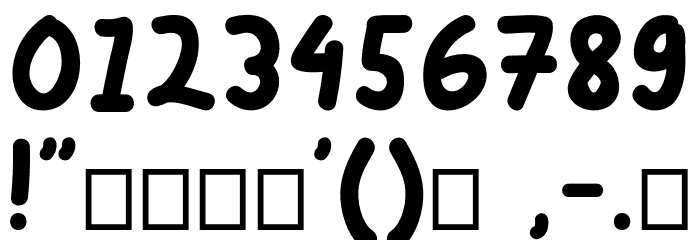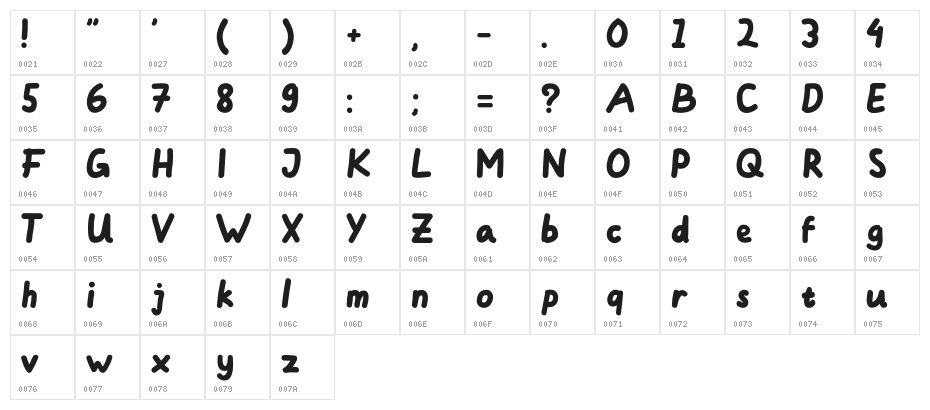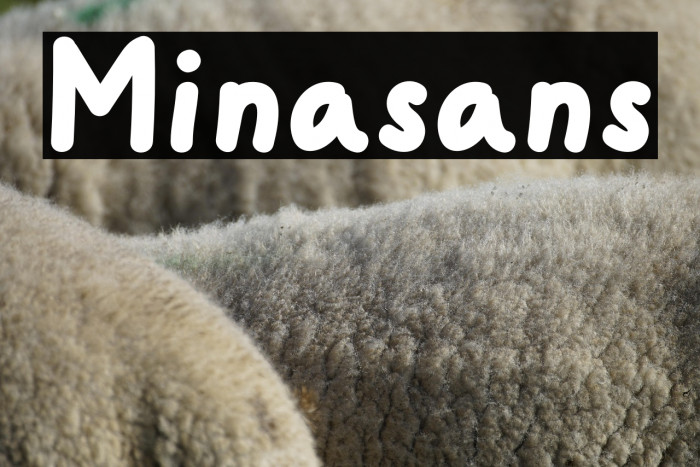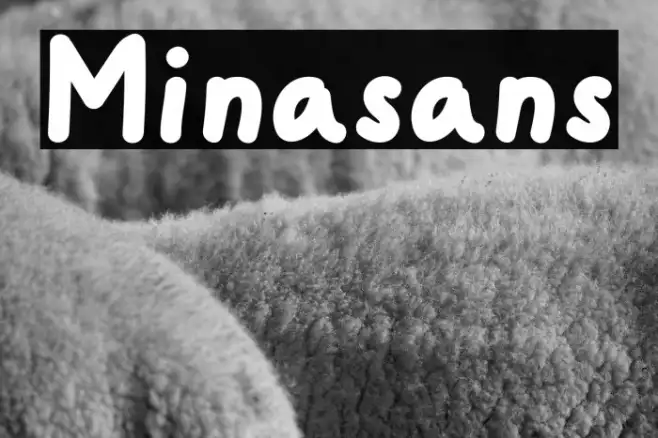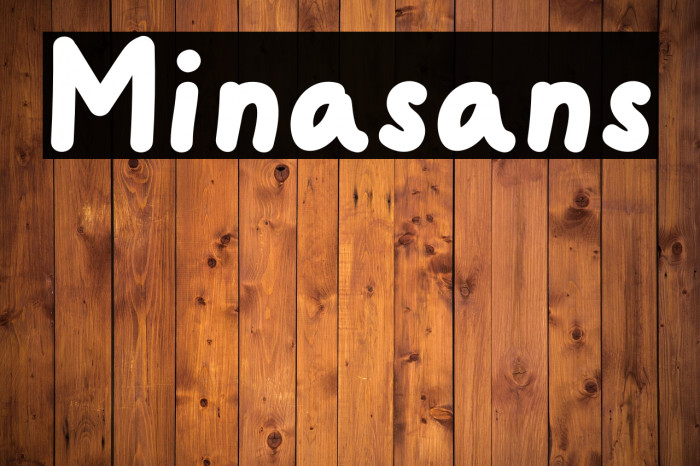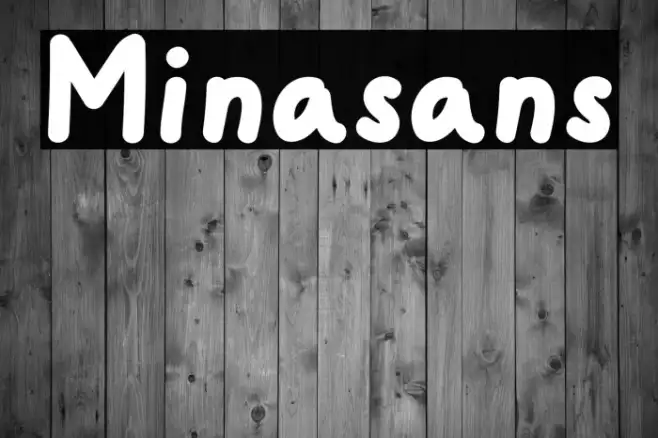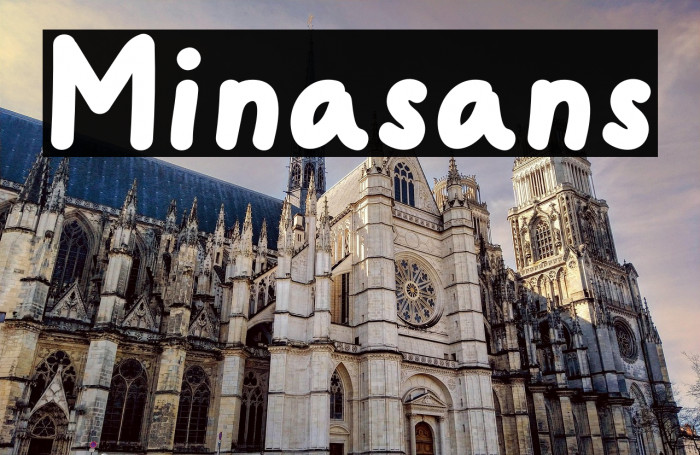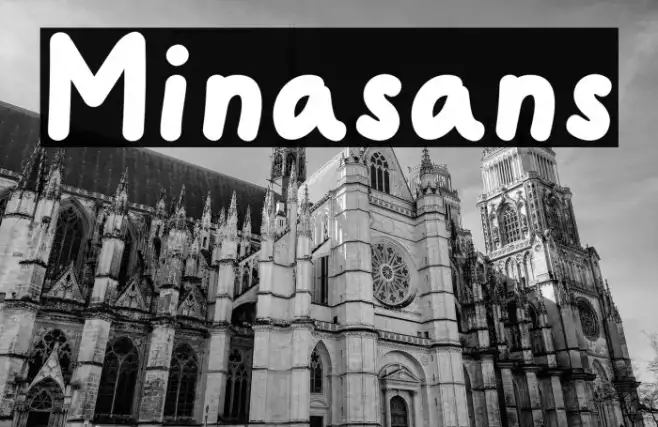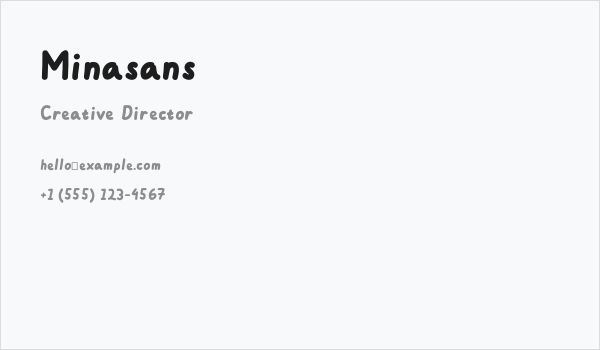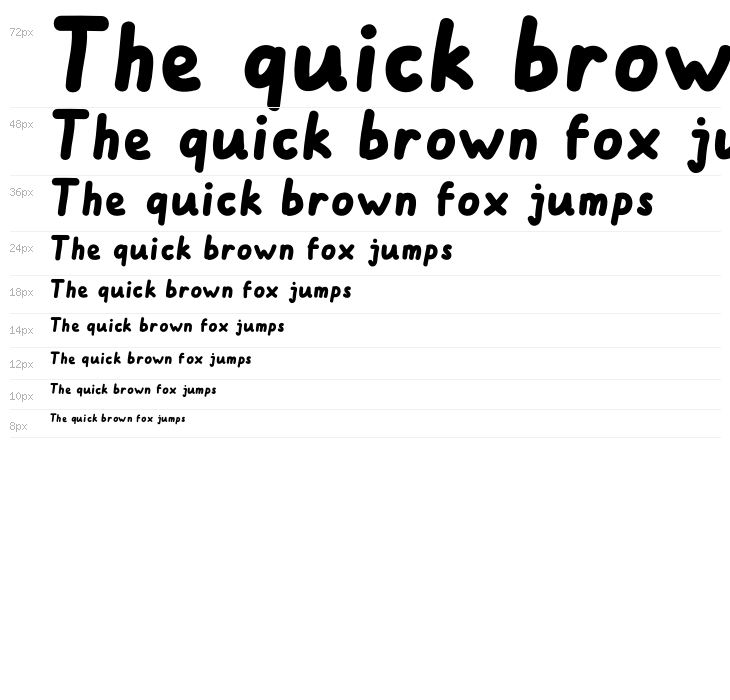
Minasans Font
Minasans Description
This playful and bold font features rounded, smooth edges and a casual, handwritten style. The characters are slightly tilted, giving them a dynamic and informal appearance. The uppercase and lowercase letters maintain a consistent thickness, contributing to a cohesive look. The numerals are equally rounded, matching the friendly aesthetic of the alphabet. Special characters are included, maintaining the same playful style. This font is ideal for projects that require a personal touch or a fun, approachable vibe.
| Proposed Projects | Ideal for children's books, playful branding, casual invitations, and social media graphics. |